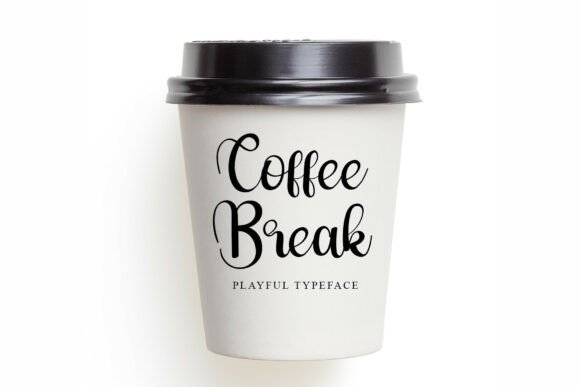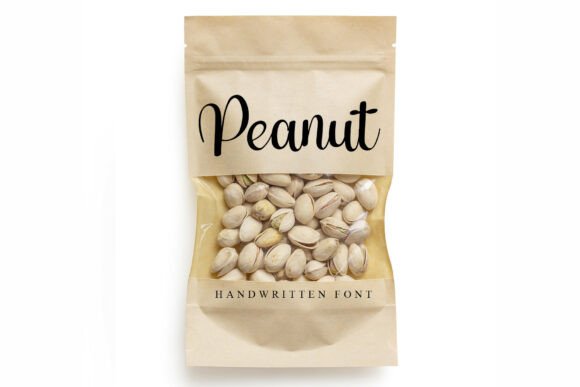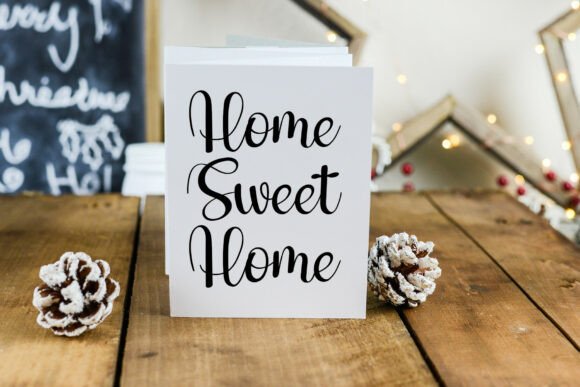
Introducing Chips Font: Elevate Your Designs with Elegance
Are you on the lookout for a font that adds a touch of sophistication and uniqueness to your projects? Look no further than Chips Font, a beautifully crafted typeface designed to bring your creative ideas to life. With its professional hand touch, Chips Font is the perfect addition to any designer’s toolkit, offering versatility and elegance in every curve and line.
The Essence of Chips Font
Chips Font is not just any ordinary font. It has been meticulously designed with a professional hand touch, ensuring that it stands out in any project. Whether you’re working on a wedding invitation, a birthday card, or any other type of greeting card, Chips Font adds a layer of sophistication that is hard to achieve with standard fonts. Its unique and elegant design makes it suitable for a wide range of applications, from formal events to casual gatherings.
One of the key features of Chips Font is its versatility. It’s not limited to just greeting cards; it’s also perfect for school assignments, creative projects, and any other important events where you want to make a lasting impression. The font’s design is carefully crafted to ensure that it complements your ideas, making them look more appealing and engaging. Whether you’re a student looking to elevate your school projects or a professional seeking to add a touch of elegance to your work, Chips Font is an excellent choice.
Why Choose Chips Font?
So, what makes Chips Font a standout choice for designers and crafters? Here are a few reasons:
- Unique and Elegant Design: Chips Font boasts a unique and elegant design that sets it apart from more conventional fonts. Its hand-crafted touch gives it a personal and sophisticated feel.
- Versatility: From wedding invitations to school projects, Chips Font can be used in a variety of contexts, making it a valuable addition to your font collection.
Applying Chips Font in Your Designs
Incorporating Chips Font into your designs is straightforward and can significantly enhance the aesthetic appeal of your projects. Here are some tips on how to make the most of this elegant font:
- Pair it with Complementary Fonts: For maximum effect, consider pairing Chips Font with other fonts that complement its style. This can help create a balanced and visually appealing design.
- Use it for Headings and Titles: Chips Font is particularly effective for headings and titles, where its unique and elegant design can really shine.
- Experiment with Sizes and Colors: Don’t be afraid to experiment with different sizes and colors of Chips Font to find the perfect combination for your project.
Chips Font is a game-changer for designers and crafters looking to add a touch of elegance and uniqueness to their projects. With its professional hand touch, versatile design, and easy glyph accessibility, it’s the perfect font for anyone looking to elevate their creative ideas. Whether you’re working on a wedding invitation, a school project, or any other type of design, Chips Font is sure to make your work stand out. So why wait? Download Chips Font today and discover a world of creative possibilities at your fingertips.